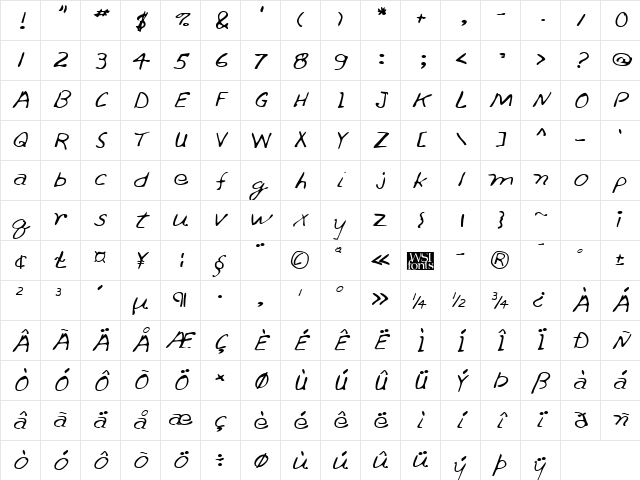
SkylersHand Regular
Design Context for SkylersHand
SkylersHand flows with the natural rhythm of handwritten lettering, making it ideal for designs that call for warmth and personal expression.
Font Pairing: Combine SkylersHand with a simple geometric sans for maximum contrast - the tension between flowing curves and clean structure is a classic typographic pairing.
Pro Tip: Use SkylersHand for short runs of text - names, titles, or taglines. Extended body copy in script faces tires the eye quickly.